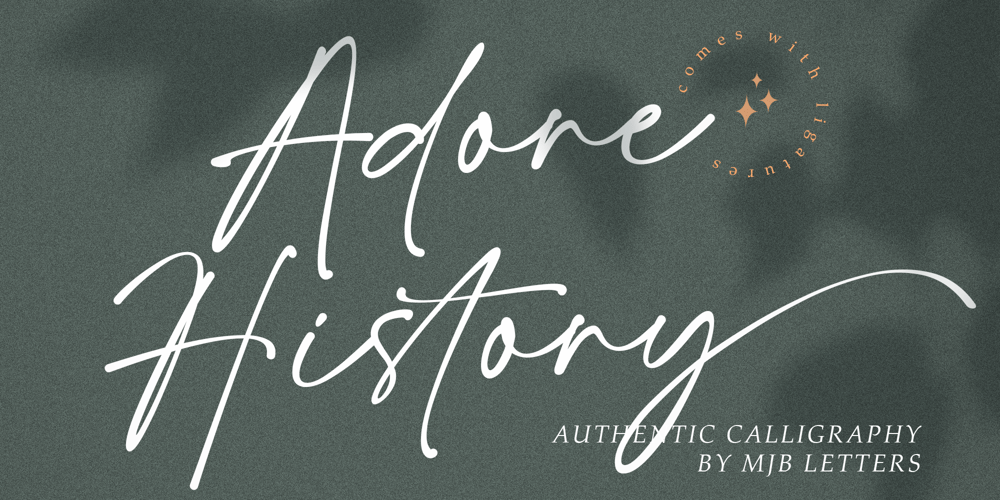
Adore History Font Family was designed by Muhammad Mujibulloh and published by MJB Letters. Adore History contains 1 styles and family package options. Introducing ‘Adore History’ – A Handwritten Script FontImmerse yourself in the graceful strokes of ‘Adore History,’ a meticulously crafted handwritten script font that brings sophistication to your creative endeavors.Indulge in the charm of ‘Adore History’ as it offers exquisite beginning and ending swashes. These delicate additions effortlessly enhance the visual appeal of your text, lending a touch of timeless elegance to your designs.‘Adore History’ is more than just a font; it’s a versatile tool that adds a sense of romance to various projects. Whether it’s wedding invitations, heartfelt letters, or any creative endeavor, this font adapts seamlessly to the graceful ambiance of any event. Features:– Basic Latin A-Z and a-z– Numbers– Symbols– PUA Encode– Multilanguage Support– Ligatures– Beginning & Ending SwashesOur sincere thanks for choosing ‘Adore History.’ Your decision to incorporate this handwritten script font into your projects is truly appreciated. May your designs be adorned with the grace and charm that ‘Adore History’ brings. Thank you for visiting and embracing the elegance of our font. and please get in touch if you have any questions!